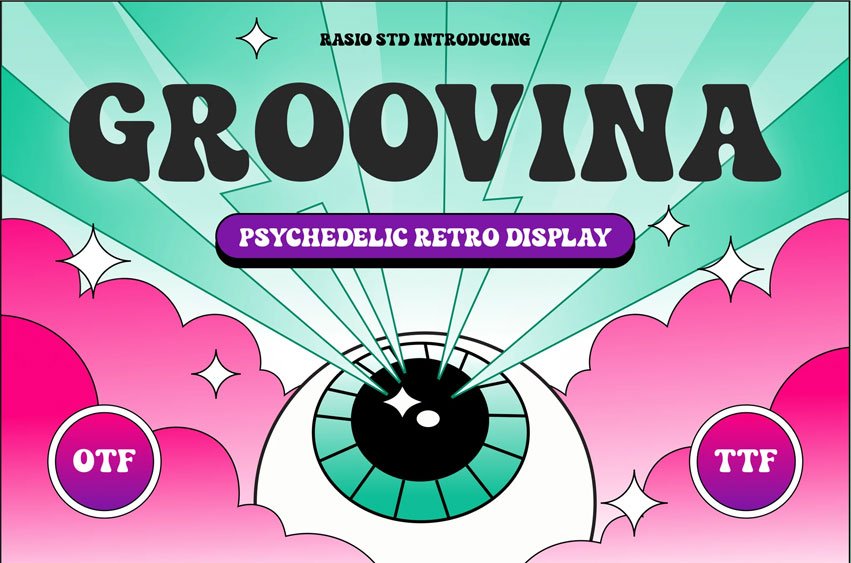
Groovina Font Psychedelic Display Font celebrates the bold and colorful spirit of retro design with a funky, curvy, and high-impact style. Inspired by the visual energy of 70s poster lettering and modern pop culture, Groovina brings rhythm, fun, and freedom into every curve. Designed by Rasio Studio, this font radiates positivity and groove — perfect for designers who want to infuse their work with personality and nostalgia.
With a playful weight and strong presence, Groovina stands out beautifully in titles, packaging, and creative visual identities. Its smooth flow and expressive shape make it a versatile typeface for both digital and print designs that crave a vibrant retro soul.
Relevance and Use Cases is perfect for retro branding, music posters, event promotions, creative titles, album covers, festival graphics, and modern psychedelic visual projects that celebrate bold personality and color.
Get into the groove with Groovina — a bold psychedelic display font that turns every design into a vibrant celebration of retro creativity and joyful energy.